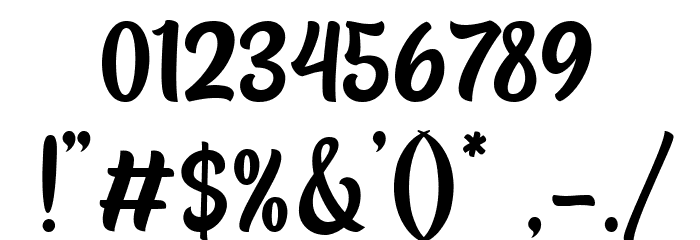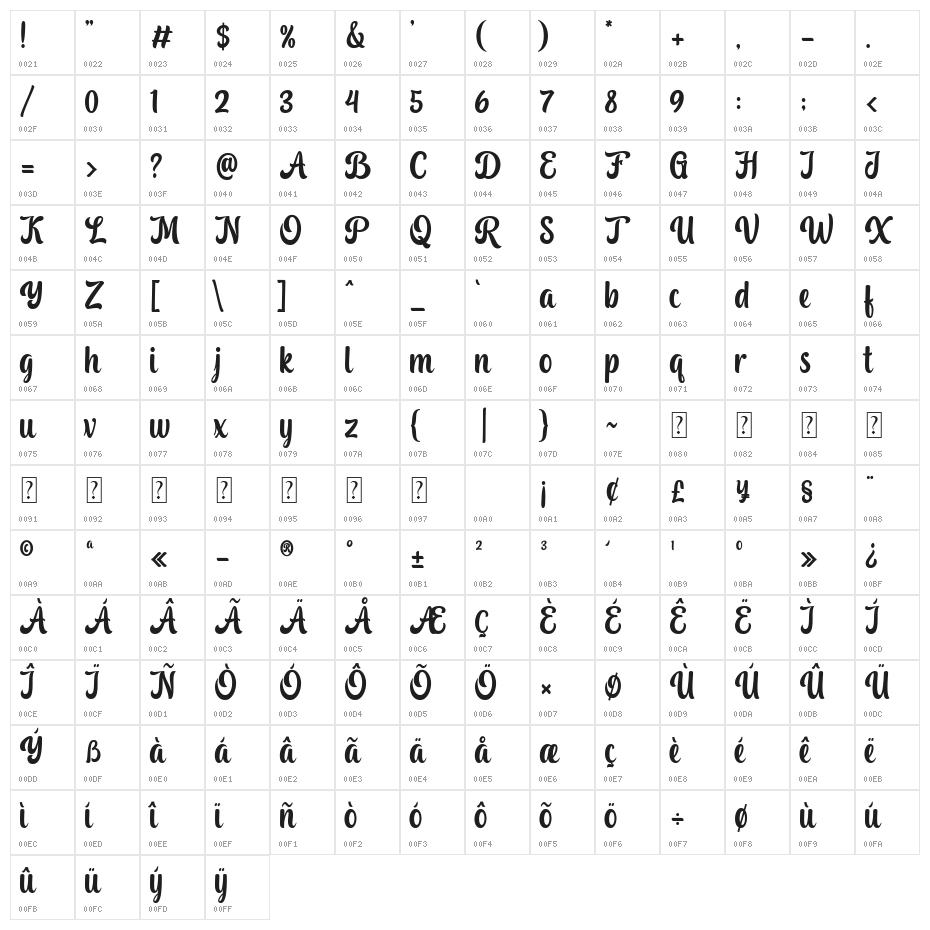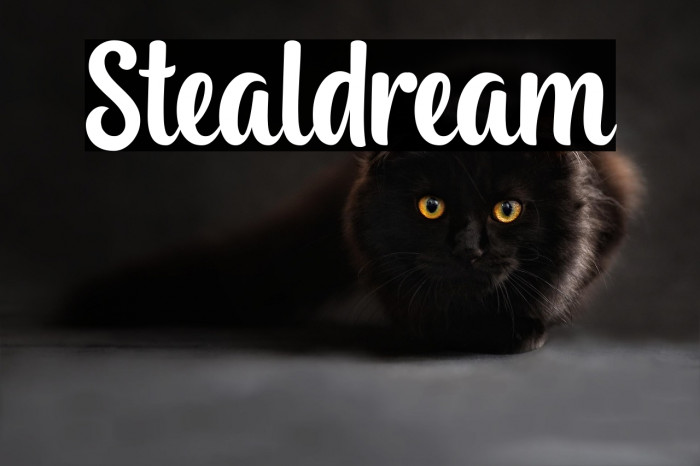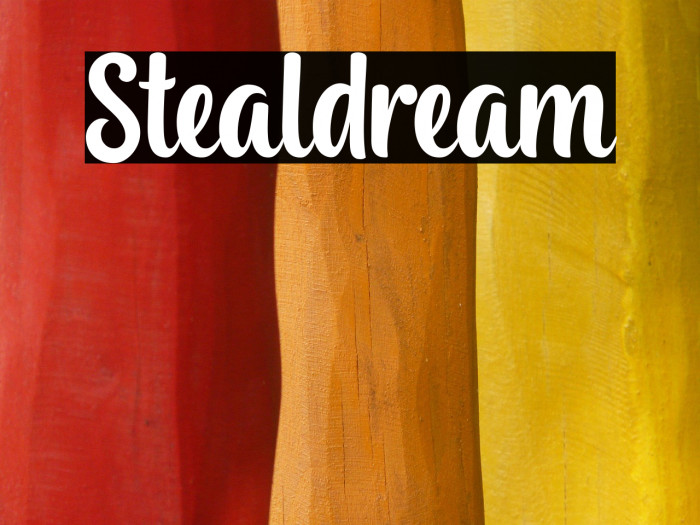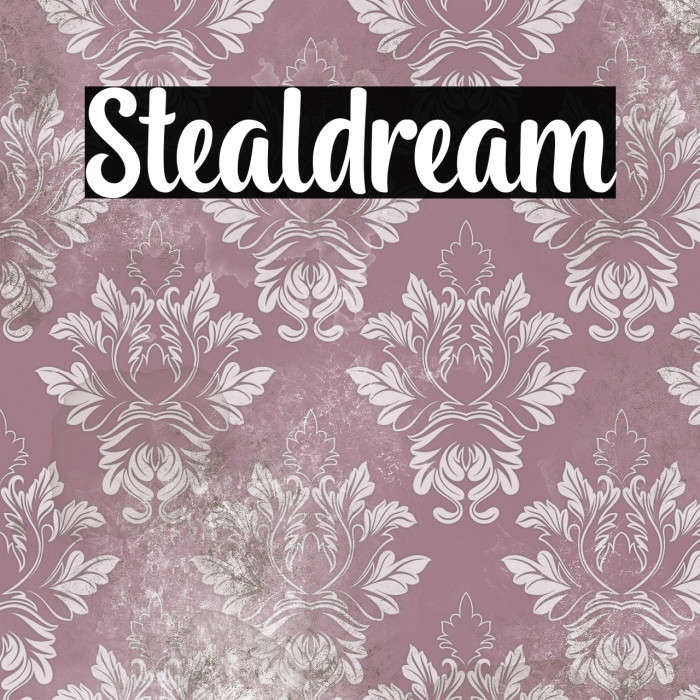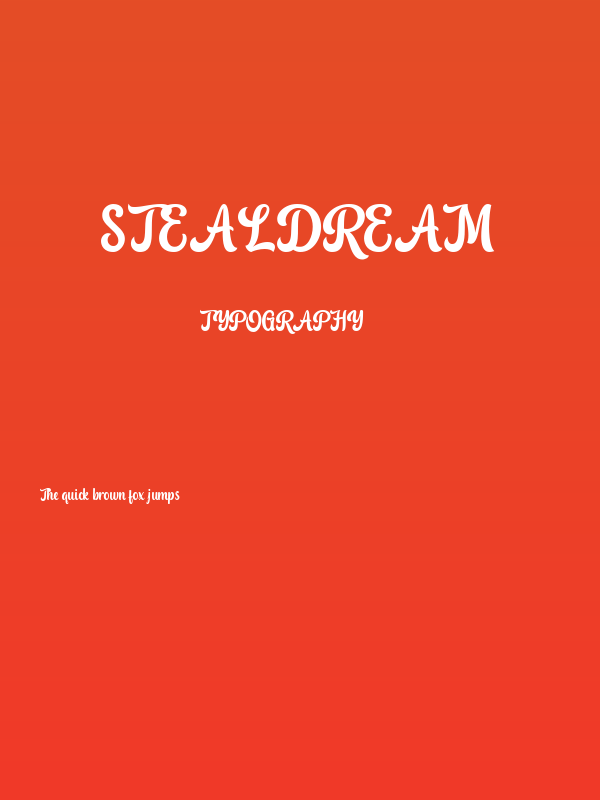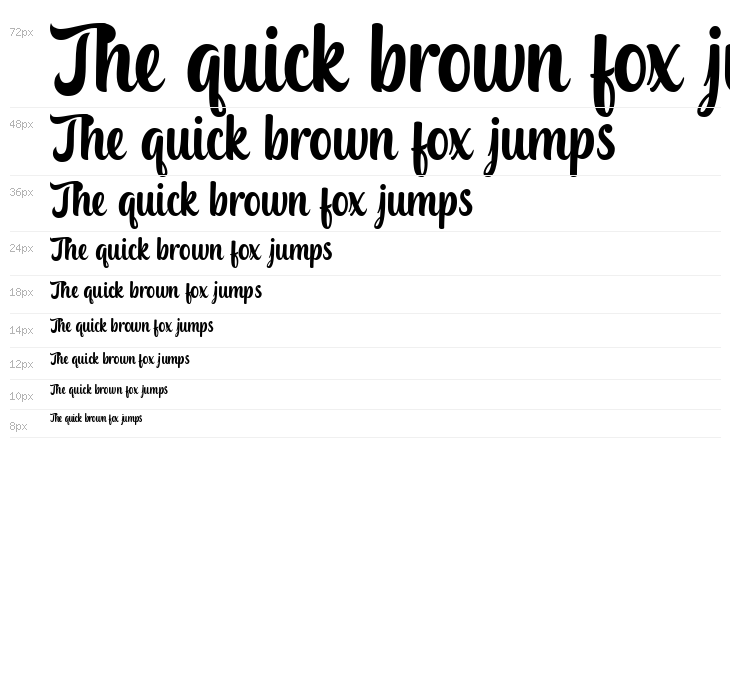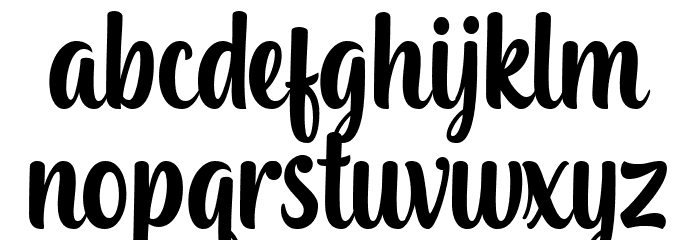
Stealdream Font
Stealdream Description
This font features a bold and playful script style, characterized by its flowing, cursive letters with a slight slant. The uppercase letters are ornate, with exaggerated curves and loops, while the lowercase letters maintain a consistent, rounded form. The numerals are equally stylized, matching the overall whimsical aesthetic. Special characters are integrated seamlessly, enhancing the font's decorative appeal. The strokes are thick and consistent, providing a strong visual presence that is both eye-catching and legible.